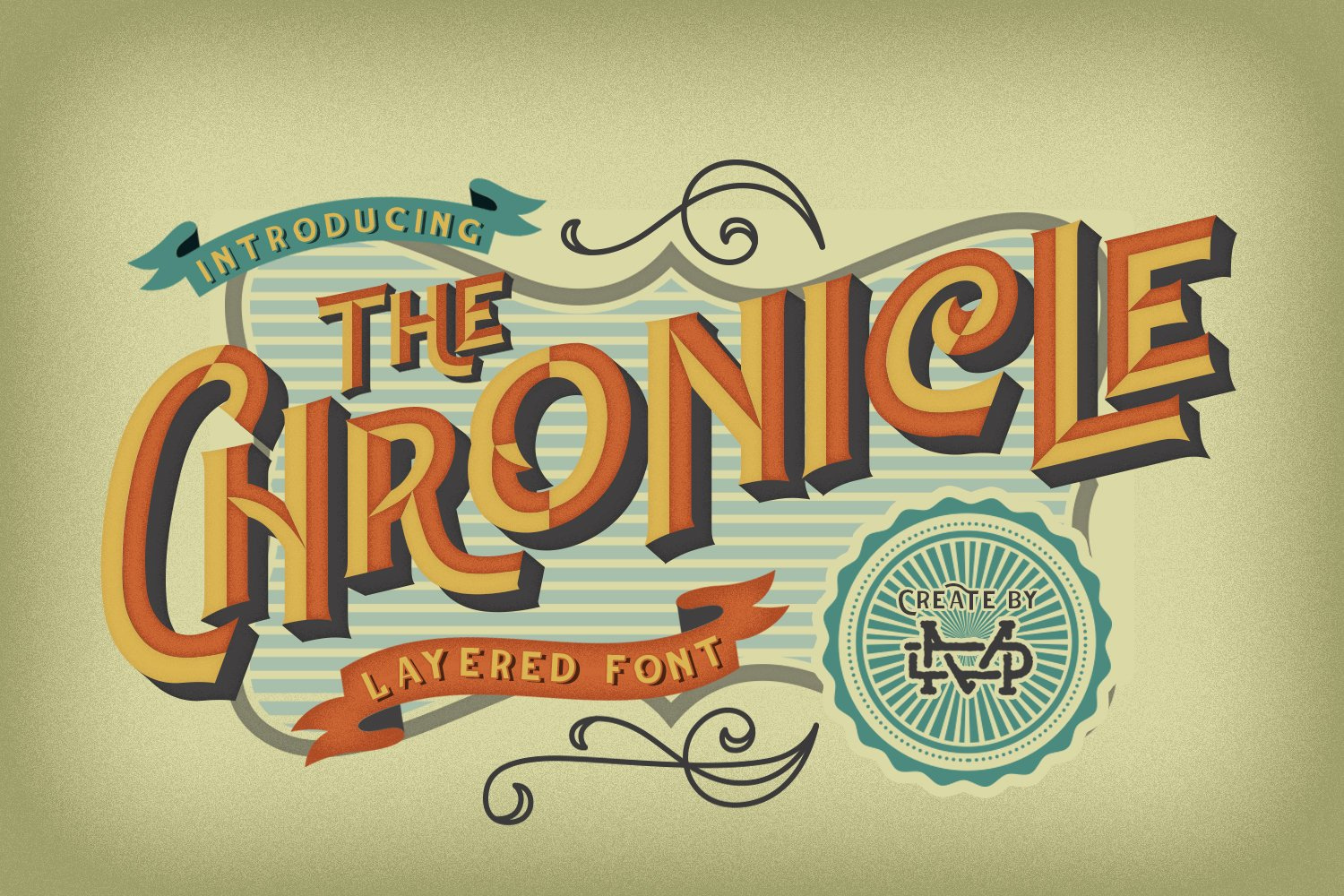
The Chronicle Layered Font
The Chronicle Layered Font is perfect for newspaper mastheads, magazine headlines, vintage poster designs, book covers, historical documentaries, museum exhibitions, editorial layouts, literary publications, historical fiction branding, and classic journalism-inspired graphics.
What makes The Chronicle Layered Font so exciting is its sophisticated layering system that allows designers to create stunning dimensional typography effects reminiscent of classic newspaper printing and vintage press techniques. This typeface captures the authoritative elegance of traditional journalism while offering modern flexibility through its innovative layered construction. The font's unique appeal lies in its ability to evoke the golden age of print media, where every headline carried weight and importance, making it perfect for projects that need to communicate credibility, tradition, and editorial excellence.
The Chronicle Layered Font comes in multiple layers including Base, Shadow, Inline, Outline, and Decorative elements, with each layer available in various weights from Light to Bold, allowing designers to mix and match components for unlimited creative combinations and stunning visual effects.
Whether you're designing editorial content, creating vintage-inspired branding, or developing sophisticated publishing materials, The Chronicle Layered Font Free Download offers unparalleled versatility and visual impact. This remarkable typeface system enables designers to achieve complex dimensional effects that would traditionally require expensive printing techniques or elaborate digital manipulation. The font's meticulously crafted layers work seamlessly together, creating depth and richness that commands attention while maintaining excellent readability across all applications.
Publishing professionals and graphic designers consistently select The Chronicle Layered Font for projects requiring editorial authority and typographic sophistication. Its layered architecture makes it particularly valuable for creating eye-catching headlines, prestigious mastheads, and memorable brand identities that need to convey trustworthiness and journalistic integrity. The font's versatile layer system allows for endless creative possibilities while maintaining the classic elegance and professional credibility essential for serious editorial and publishing applications.